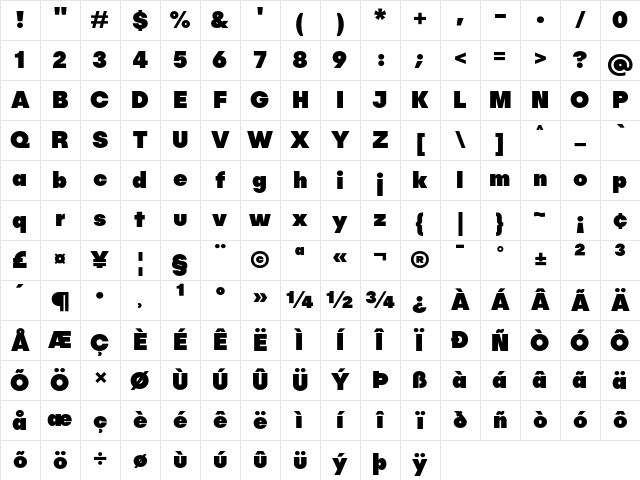
Publica Sans Black Regular
Complete Publica Sans Black Regular glyph index. Displaying only characters natively supported by Publica Sans Black Regular font.
Design Context for Publica Sans Black
Publica Sans Black is a composed and adaptable typeface that performs quietly and consistently across a wide range of design contexts.